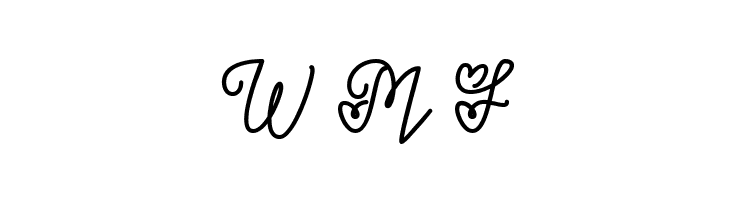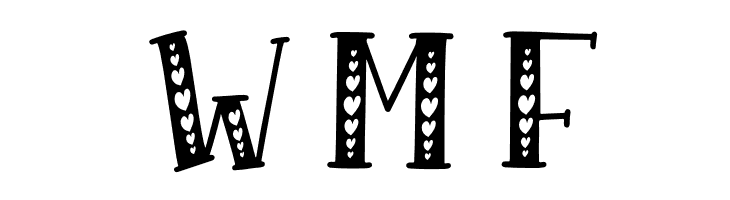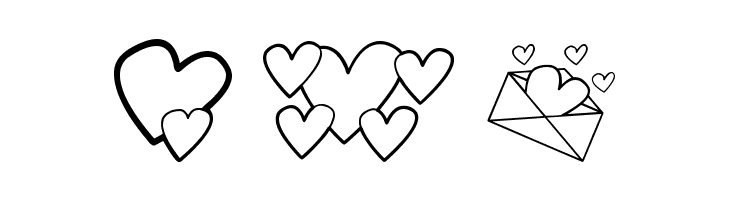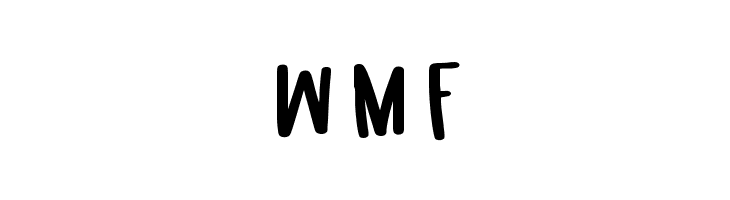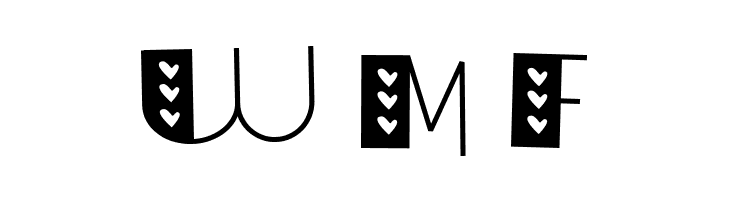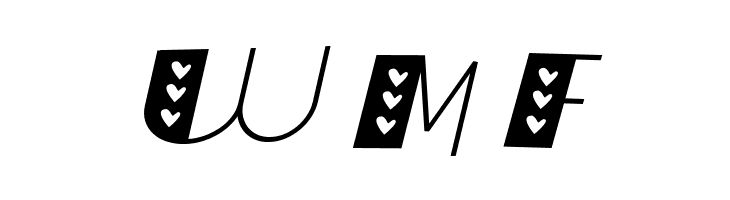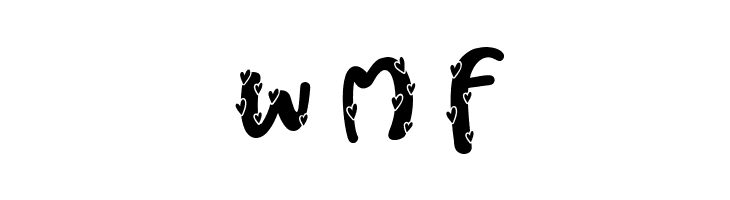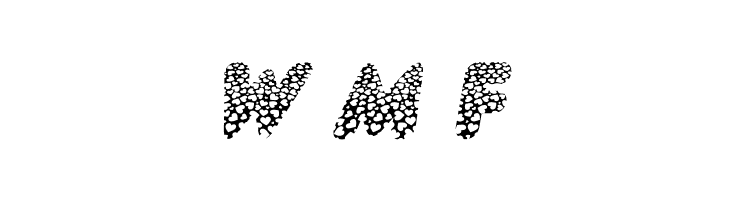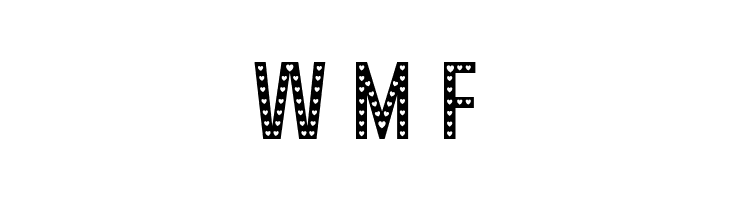
A decorative font featuring romantic-themed illustrations in a vintage comic style.
A romantic script font with heart motifs and flowing cursive style.
A romantic script font with heart motifs and a whimsical, flowing style.
A playful, heart-themed decorative font with bold, handwritten characters.
A playful font with characters inside heart shapes, perfect for romantic or themed designs.
A playful, heart-enclosed font with a casual handwritten style.
A playful font made entirely of heart shapes, perfect for romantic or whimsical designs.
A decorative font with bold characters inside heart shapes, topped with doves.
A decorative font with characters inside heart-shaped floral designs.
A decorative lips-themed font with expressive, bold glyphs.
A decorative font with heart-shaped cutouts, perfect for romantic and playful designs.
A playful, heart-filled decorative font with a whimsical and romantic style.
A playful, heart-filled decorative font with bold, rounded letters.
A bold, decorative font with heart-shaped cutouts and playful, dynamic characters.
A whimsical font with letters encased in heart shapes, perfect for romantic or playful designs.
A decorative font with diverse heart shapes and playful designs.
A playful, heart-themed decorative font with bold outlines.
A diverse set of heart shapes with unique patterns and designs.
A playful, hand-drawn font with heart motifs and a whimsical style.
A decorative font made of heart shapes, ideal for romantic or playful designs.
A playful, decorative font with heart motifs and bold, whimsical characters.
A playful, heart-themed italic font with bold, decorative letterforms.
A playful, heart-themed decorative font with bold, whimsical characters.
A playful, heart-themed font with bold, rounded characters.
A bold, playful font with heart-shaped embellishments on each character.
A diverse collection of heart-themed symbols with creative and artistic variations.
A bold, italic font with heart-shaped patterns for a playful and romantic look.
A bold, decorative font with heart-shaped embellishments on each character.
A decorative font with characters enclosed in heart shapes, ideal for romantic themes.
A bold, playful font with heart-shaped cutouts for a whimsical touch.
A romantic script font with letters encased in decorative heart shapes.
A decorative font with characters enclosed in heart shapes, ideal for romantic themes.